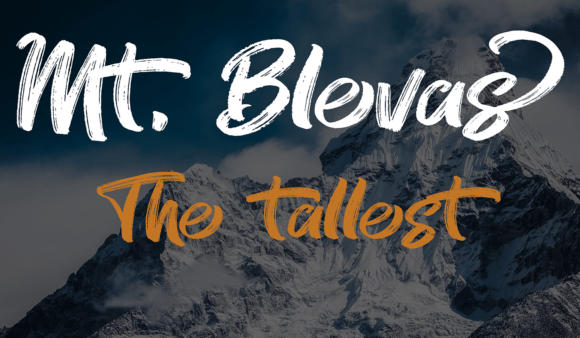
Introduction to Mt. Blevas Font
Mt.
Blevas is a modern brush script font featuring bold, textured strokes and a natural flow With its mountain-inspired ruggedness and casual charm, this font is ideal for outdoor branding, adventure-themed posters, merchandise, or inspirational quotes with a handmade vibe.
Key Features of Mt. Blevas Font
Why Choose Mt. Blevas Font?
Mt. Blevas Font offers exceptional quality and versatility, making it a valuable addition to your design toolkit. Whether you’re creating for personal projects or commercial use, Mt. Blevas Font delivers professional results.